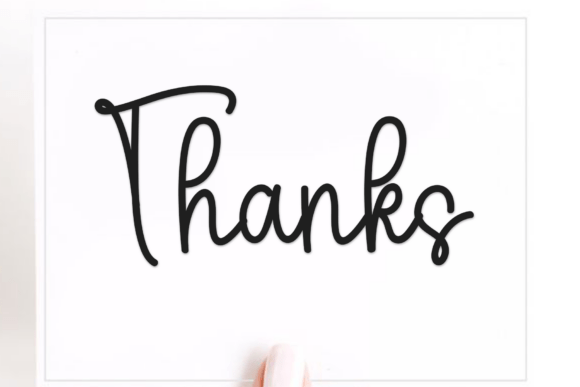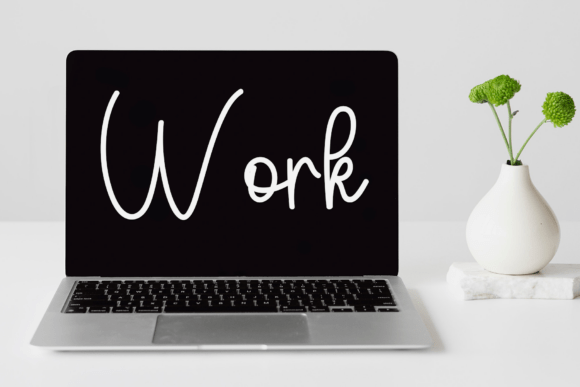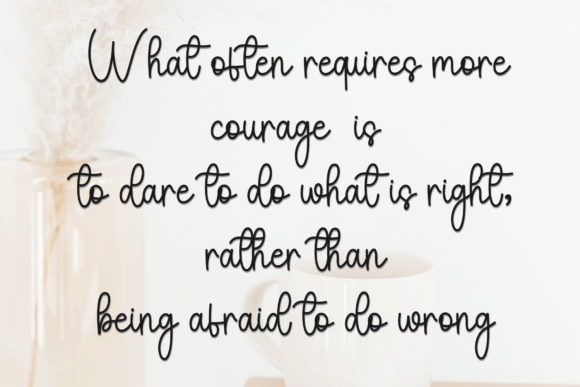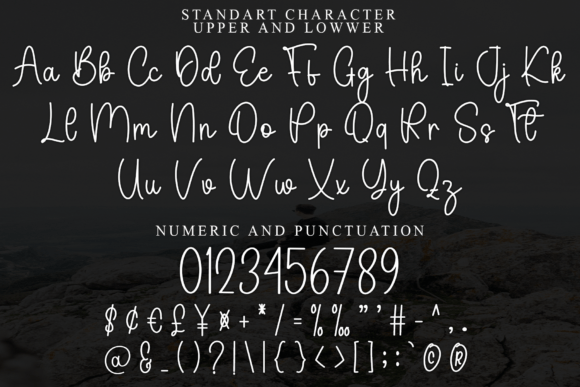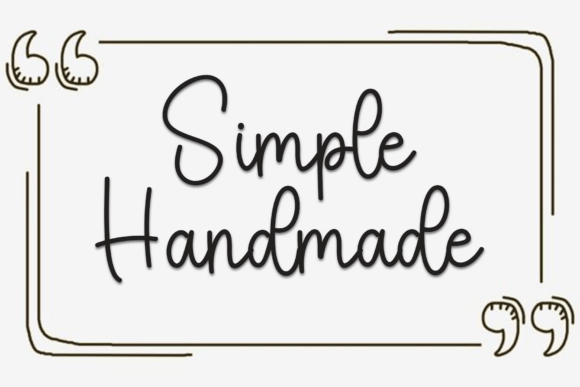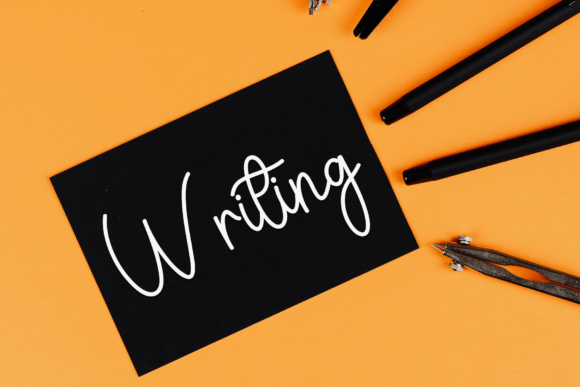
Introducing Everyday Font: Elevate Your Designs with a Unique and Beautiful Typeface
In the world of design, typography plays a crucial role in capturing the audience’s attention and conveying the message effectively. A font can make or break a design project, which is why it’s essential to choose a typeface that is not only visually appealing but also versatile and compatible with various applications. If you’re a designer, crafter, or creative enthusiast looking for a font that can elevate your designs, look no further than Everyday Font.
A Soft and Unique Touch
Everyday Font is a beautifully crafted typeface designed with a soft, unique touch. Its distinctive strokes give it a special character, making it stand out from other fonts. The font’s gentle curves and rounded edges create a friendly and approachable feel, perfect for designs that require a personal touch. Whether you’re working on a project for a client or creating something for your personal portfolio, Everyday Font is sure to impress.
Meaningful and Versatile
Everyday Font is more than just a pretty face; it’s a meaningful and versatile typeface that can be used in a wide range of design projects. Its unique character makes it perfect for crafts, creative works, and other artistic endeavors. The font’s versatility is due in part to its various characters, which allow you to experiment with different styles and designs. Whether you’re creating a logo, brochure, or social media graphic, Everyday Font is an excellent choice.
Ideal for a Wide Range of Products
Everyday Font is an excellent choice for a wide range of products, from digital designs to print materials. Its natural font style makes it perfect for:
- Brochures, flyers, and other marketing materials
- Crafts and DIY projects
- Stationery and invitations
The font’s versatility and compatibility make it an excellent addition to any designer’s toolkit.
Enhance Your Designs and Appeal to a Wide Audience
Everyday Font is designed to enhance your designs and appeal to a wide audience across different artistic and creative fields. Its unique character and soft, touch make it perfect for designs that require a personal and approachable feel. Whether you’re targeting a specific demographic or creating a design that will appeal to a broad audience, Everyday Font is an excellent choice.
In conclusion, Everyday Font is a beautiful and eye-catching typeface that is perfect for designers, crafters, and creative enthusiasts. Its soft, unique touch, distinctive strokes, and versatility make it an excellent addition to any design project. With its compatibility across various applications and platforms, Everyday Font is an ideal choice for a wide range of products. Elevate your designs and appeal to a wide audience with Everyday Font – a font that is sure to become a staple in your design toolkit.